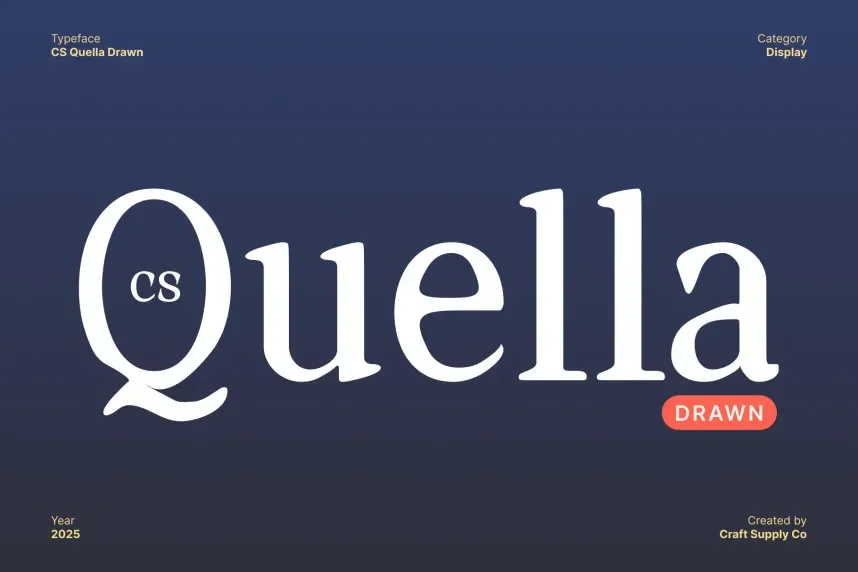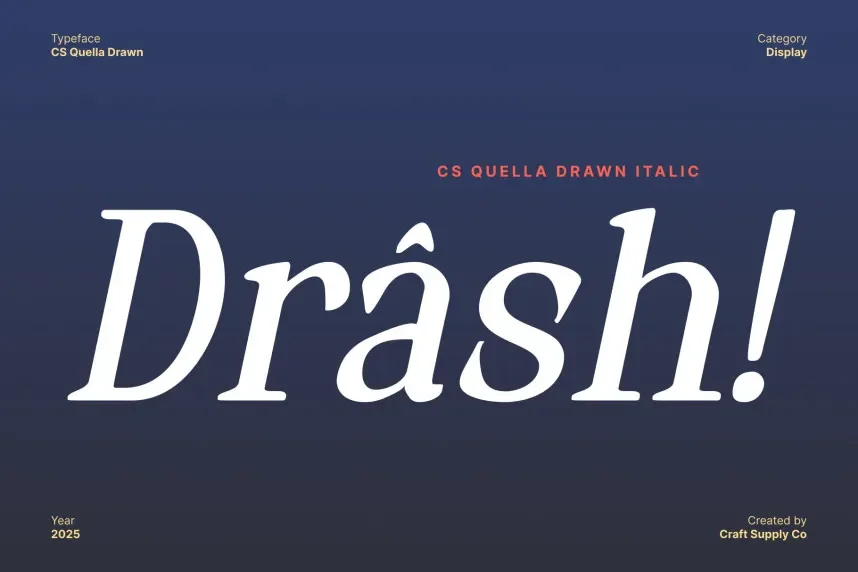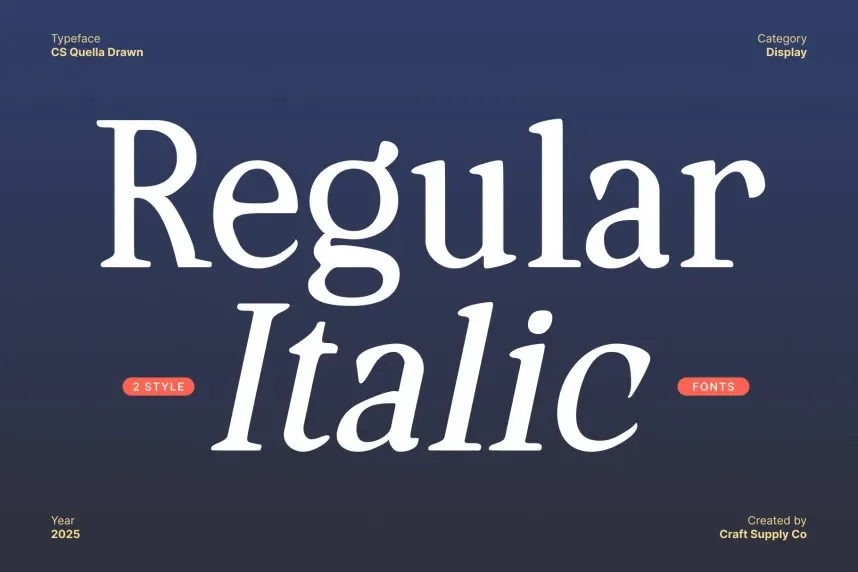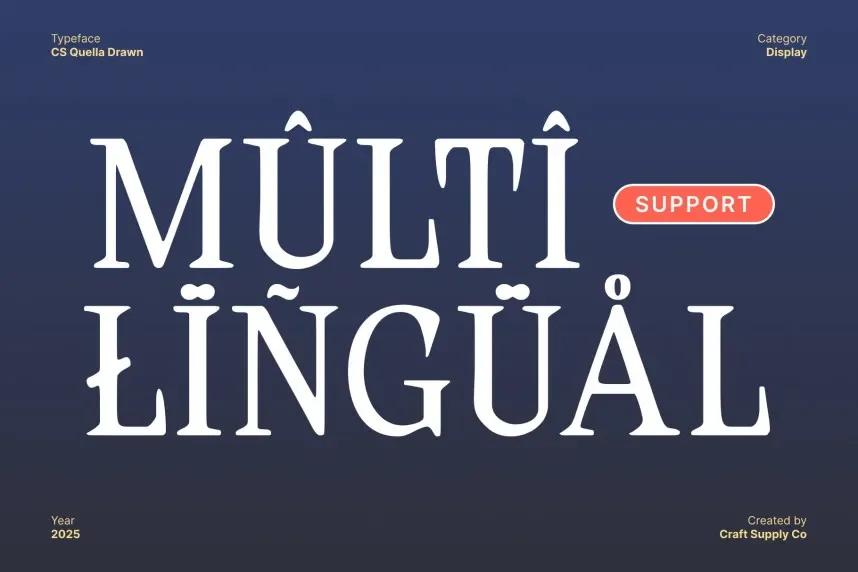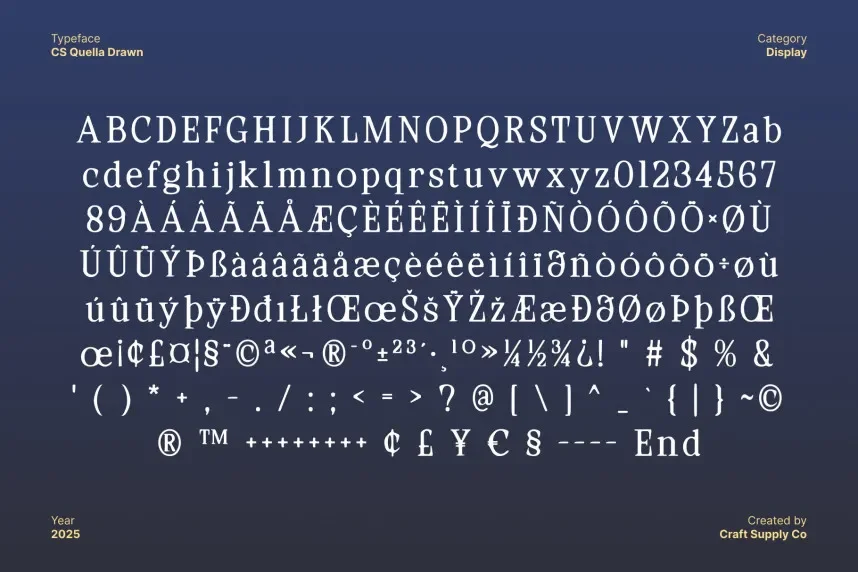
CS Quella Font is a bold, hand-drawn display typeface with strong, geometric forms and distinctive letter shapes. Its unique design makes it suitable for creative branding, posters, and digital art projects where individuality matters.